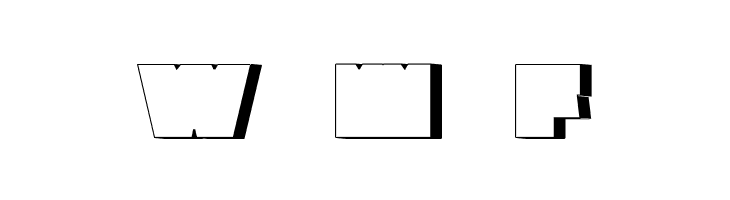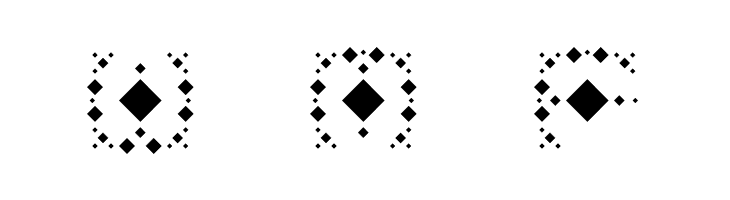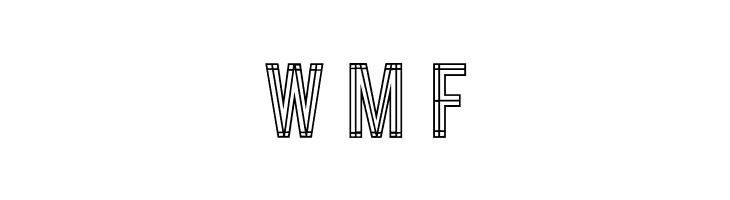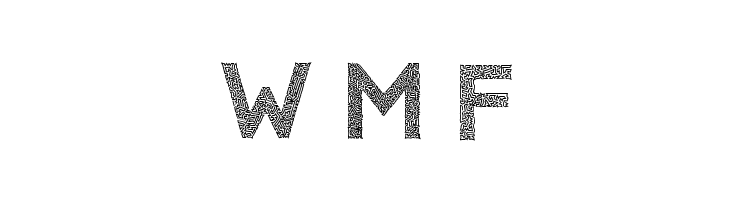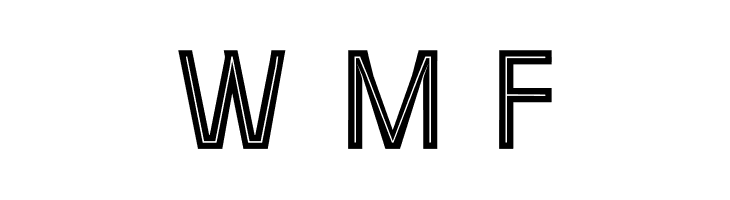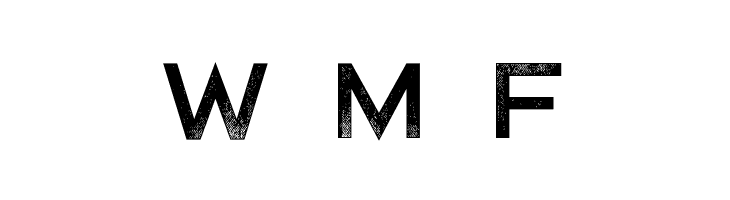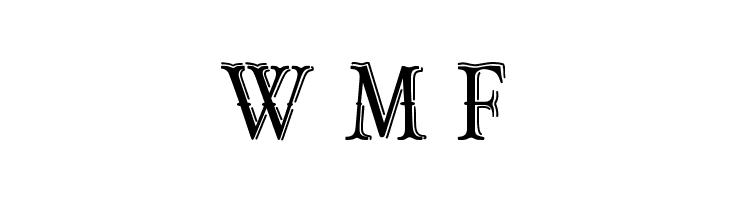
A bold, angular font with sharp, sword-like edges for striking visual impact.
A bold, expanded, and italicized font with a rugged, textured appearance.
A bold, textured font with a rugged, italicized style.
( Levi Szekeres - www.loremipsum.ro )
A bold, 3D outline font with a playful and eye-catching design.
( MRfrukta - Alex Frukta - www.behance.net/MRfrukta )
A bold, geometric font with outlined characters and a modern, industrial aesthetic.
( Parker Creative - Alan Parker - fontbundles.net/parker-creative Sponsoren Schriftart )
A distressed, bold font with a vintage, textured style.
( PutraCetol Studio - Putra Novembria Candra Kusuma - creativemarket.com/putracetol )
A bold, textured font with a tribal, hand-carved aesthetic.
( Qkila - Quentin Aquila - www.creativefabrica.com/designer/qkila/ )
A bold, decorative font with a three-dimensional shadow effect.
( Riskiansyah Ilyas )
A bold, angular font with a distressed, grunge texture.
( TSV Creative - creativemarket.com/TSVcreative )
A bold, distressed font with a grunge, hand-drawn appearance.
( Vladimir Nikolic - www.coroflot.com/vladimirnikolic )
A bold, outlined font with a modern and geometric style.
( Vladimir Nikolic - www.coroflot.com/vladimirnikolic )
A bold, geometric font with a neon-like outline, perfect for retro and modern designs.
( Vladimir Nikolic - www.coroflot.com/vladimirnikolic )
A bold, 3D font with a vintage, shadowed style.
( Xerographer Fonts - Max Infeld - xerographer.blogspot.com )
A bold, geometric font with a double-line structure and modern appeal.
( bogstav - www.bogstav.com )
A bold, brushstroke-inspired font with an artistic and expressive style.
( imagex - www.imagex-fonts.com )
A bold, geometric font with a three-dimensional effect and strong, angular characters.
( weknow - Wino S Kadir - www.creativefabrica.com/designer/weknow/ )
A hollow, rounded font with a futuristic and playful design.
( weknow - Wino S Kadir - www.creativefabrica.com/designer/weknow/ )
A bold, hollow, inverse font with a playful and modern design.
( weknow - Wino S Kadir - www.creativefabrica.com/designer/weknow/ )
A bold, dynamic font with a futuristic and edgy style.
( Andrew Lander - formerly at home.earthlink.net/~landerfam/fonts.html )
A decorative font with a bold, outlined, three-dimensional appearance.
( Annie de la Vega )
A bold, playful font with a three-dimensional outline effect.
( Dani Foster Herring - dani3d.com/ )
Decorative lighthouse and coastal building illustrations replace standard characters.
( Digital Type Foundry - www.digitaltypefoundry.com/ )
The image contains non-standard symbols or runes.
( Elbow - www.elbow.com/fonts )
A bold, three-dimensional font with a vintage, shadowed style.
( Fonts of Afrika - www.themaps.co.za/downloads.asp )
A bold, decorative font with a unique patterned fill, perfect for eye-catching designs.
( Fontsandfashion - www.fontsandfashion.com/ )
A bold, decorative serif font with intricate details and a vintage flair.
( Intellecta Design - new.myfonts.com/search/intellecta/fonts/?sort=sales?refby=paulow )
The image contains decorative illustrations instead of a standard font.
( London's Letters - www.londonsletters.com/ )
A bold, playful font with characters encased in rounded rectangles, reminiscent of vintage typewriter keys.
( PintassilgoPrints - www.pintassilgoprints.com )
A bold, geometric font with a shadow effect for a three-dimensional look.
( Pixel Kitchen )
A decorative font with characters formed by diamond shapes, offering a modern and artistic look.
( RIzky Irawan - www.rizkyirawan90s.blogspot.com )
A decorative, double-line font with a geometric, architectural style.
( Rafael Dinner - alum.mit.edu/www/rdinner/fonts.html )
A bold, three-dimensional font with a modern, industrial feel.
( Fonts by Nick Curtis - Personal-use only. For commercial use please contact owner. )
A bold, shadowed font with a vintage flair, perfect for standout headlines.
A decorative and eclectic font with unique, artistic characters.
A bold, shadowed font with a three-dimensional effect, perfect for standout designs.